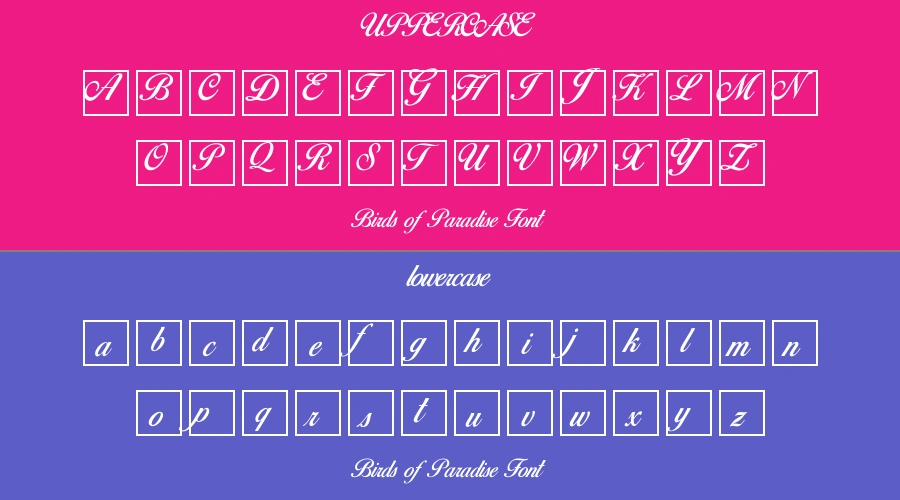
About Birds of Paradise Font
Birds of Paradise Font embodies typographic excellence through its masterful combination of refined proportions and traditional values. Created for traditional magazines, this typeface delivers exceptional flexibility and reliability across all applications. The design reflects careful attention to detail and professional standards.
Advanced capabilities include distinctive expressive energy and versatile initial forms, giving designers creative control. When used in compliance materials, Birds of Paradise Font exhibits remarkable scanning accuracy. The harmonious balance between descender depth and professional recognition sets this typeface apart.